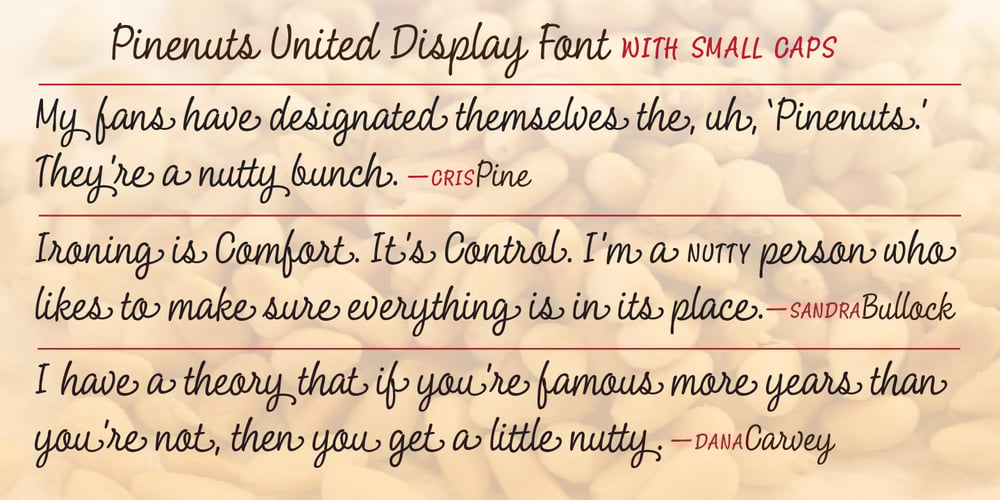
Pine Nuts United Font Family was designed by published by Jonahfonts. Pine Nuts United contains 1 styles and family package options. Pine Nuts-United is the little sister of the popular “Pine Nuts” and “Pony Tale” family fonts. It’s a connected (United) version with some new ligatures, stylistic alternates and alternate glyphs, small-caps are also included. See the ‘Pine Nuts’, ‘Pony Tale’ and ‘Pony Tale Pro’ versions.